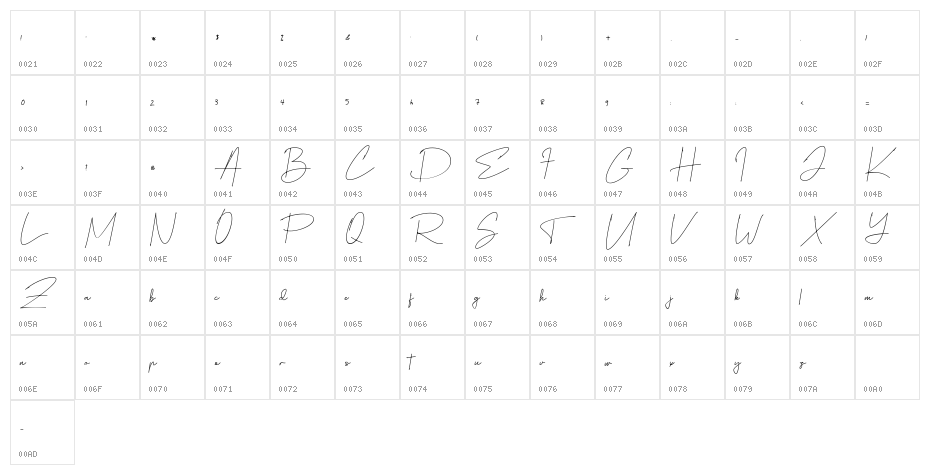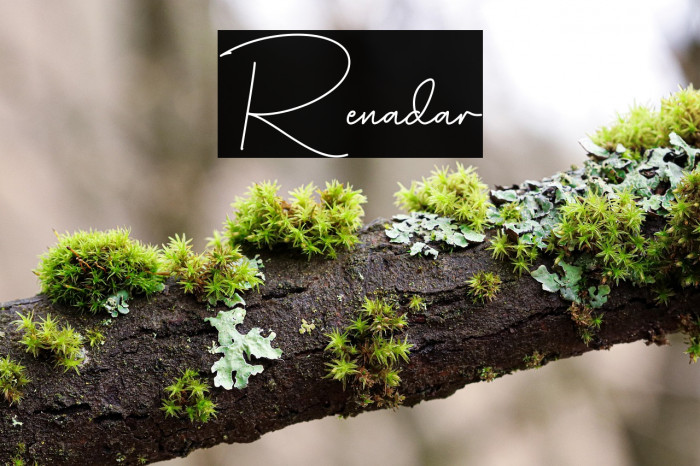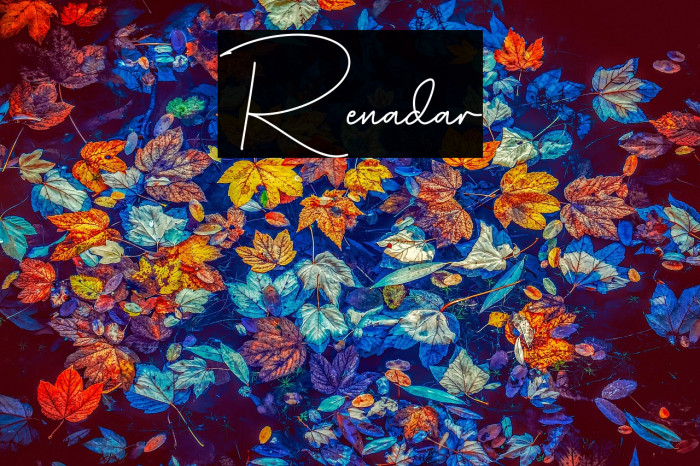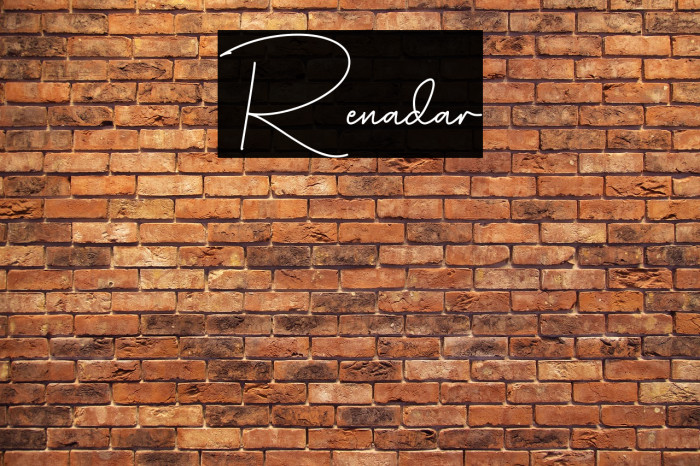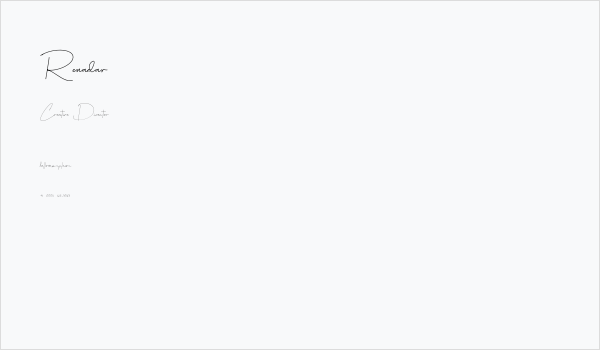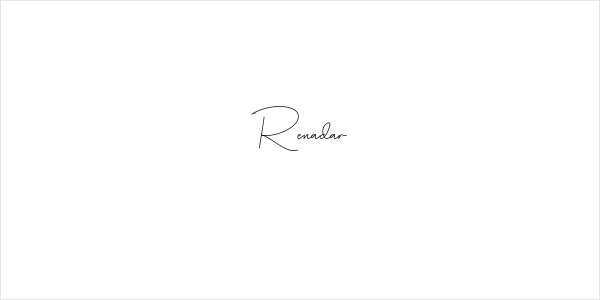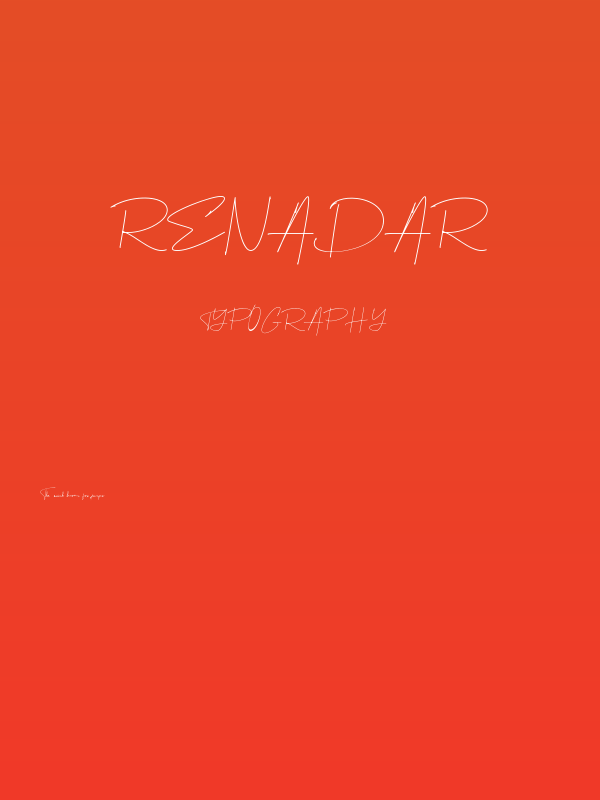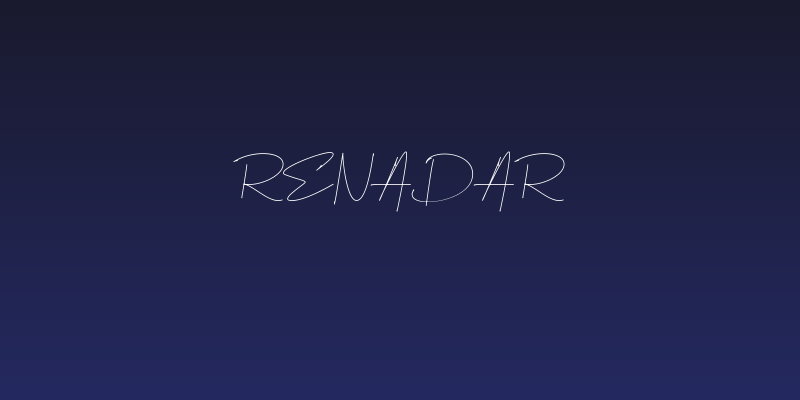
Renadar Font
Renadar Description
This font exudes a modern and elegant handwritten style, characterized by its fluid and graceful strokes. The uppercase letters are tall and slender, with a slight slant that adds a dynamic feel. The lowercase letters maintain a consistent flow, enhancing the script-like quality. Numbers and special characters are crafted with the same attention to detail, ensuring a cohesive look across all elements. The overall appearance is sophisticated yet approachable, making it suitable for a variety of design applications.
| Use Case | Logos, Invitations, Social Media |
| Proposed Projects | Ideal for wedding invitations, personal branding, social media graphics, and elegant stationery. |